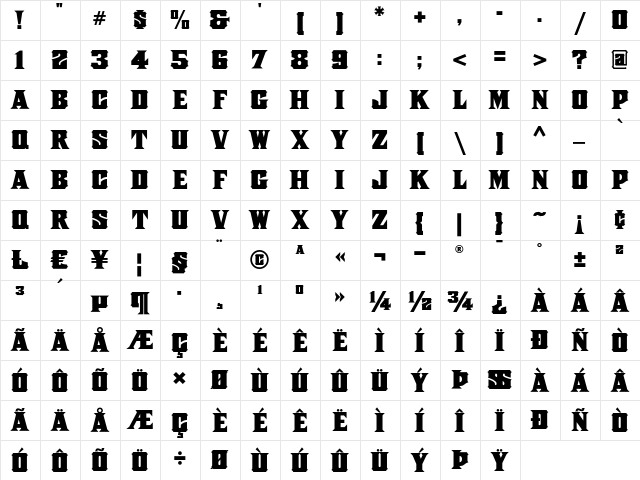
Dime Box WBW Regular
| Foundry | Nick's Fonts |
| Designer | Nick Curtis |
Design Context for Dime Box WBW Typeface
Dime Box WBW offers clean, dependable letterforms without strong stylistic allegiance, making it a practical choice for designers who need flexibility.